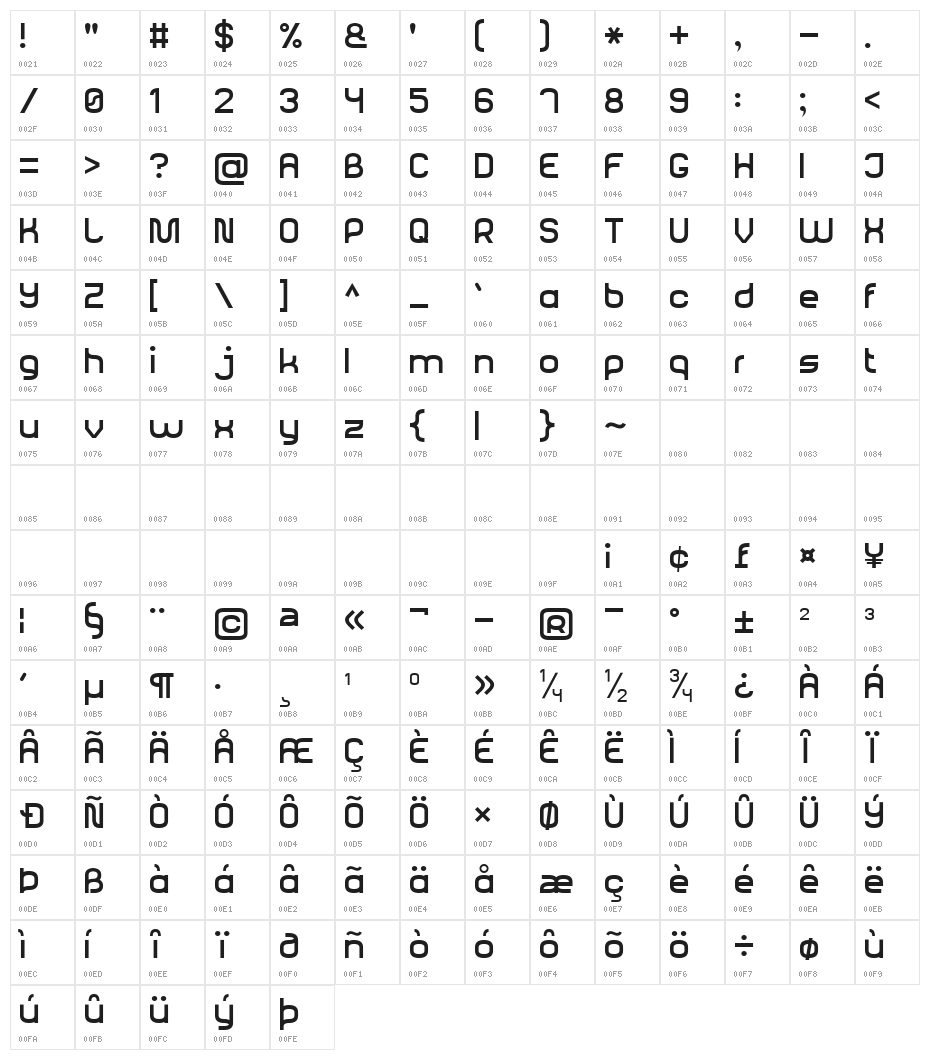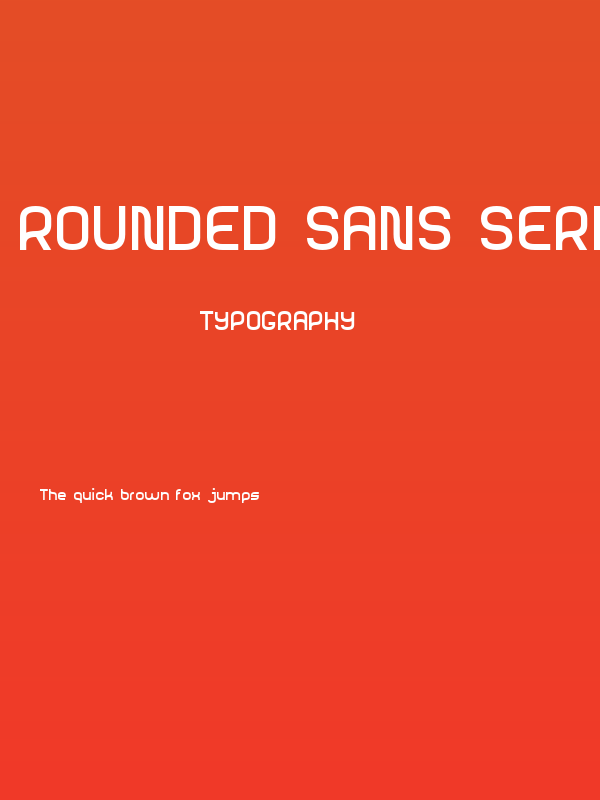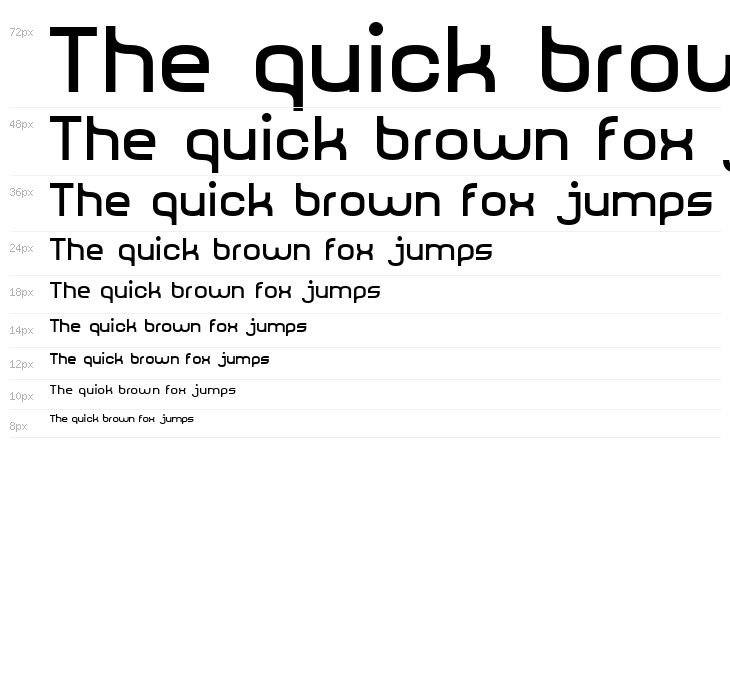
Rounded Sans Serif 7 Font
Rounded Sans Serif 7 Description
This font features a clean and modern design with rounded edges, giving it a friendly and approachable appearance. The sans-serif style ensures clarity and readability, making it suitable for a variety of applications. The uniform stroke width contributes to a balanced and harmonious look, while the rounded terminals soften the overall aesthetic. The characters are well-proportioned, with consistent spacing that enhances legibility. This font is versatile, ideal for both digital and print media, and can be used effectively in branding, advertising, and user interfaces.
| Proposed Projects | Ideal for branding, advertising, user interfaces, and digital media. |